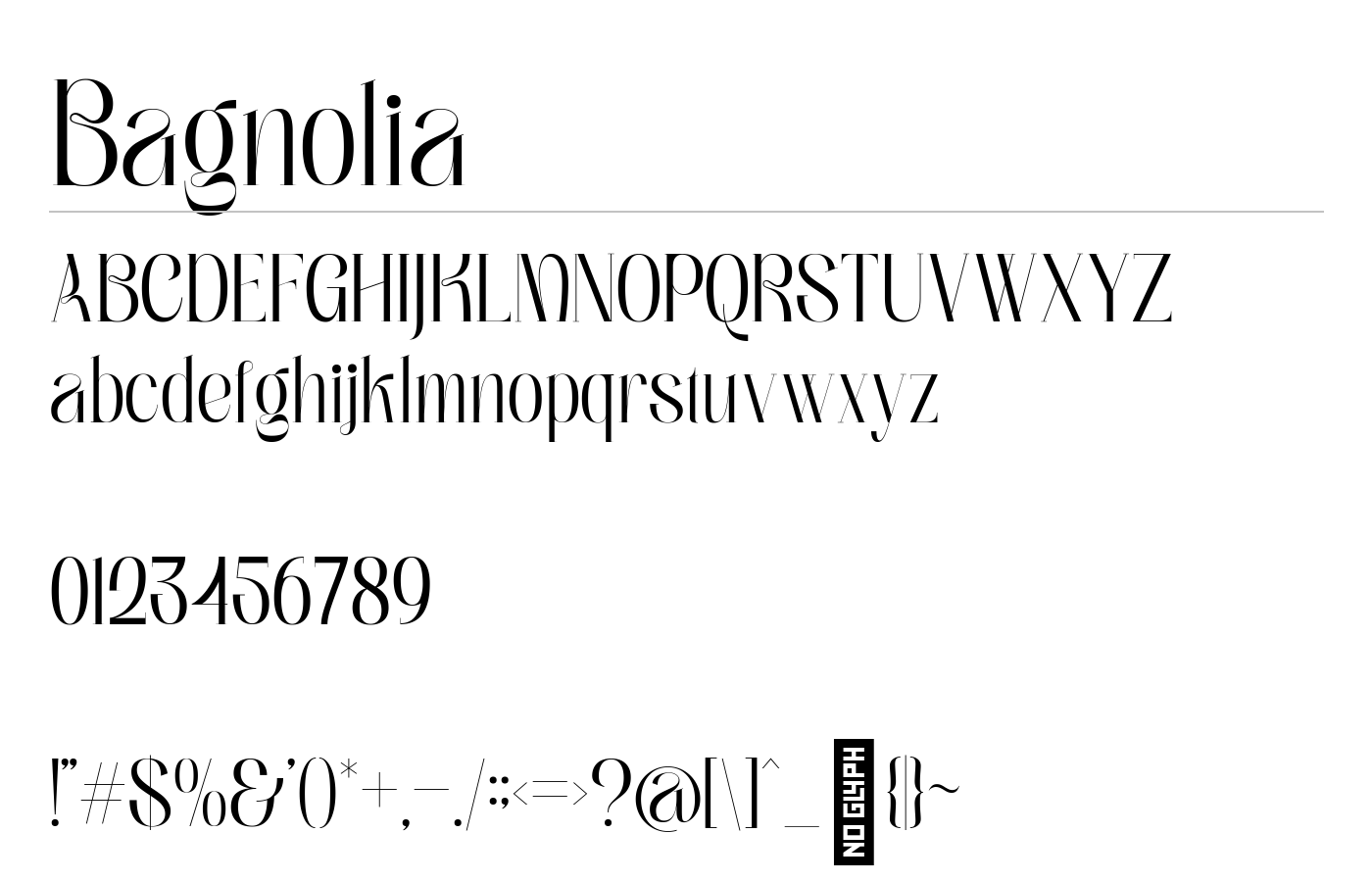
Bagnolia is a refined serif font with a modern, elegant flair, characterized by its high contrast between thick and thin strokes and delicate, slender letterforms. Its tall, narrow proportions combined with unique, artistic details like the curled tail of the 'g' give it a sophisticated and stylish appearance, perfect for upscale branding, editorial headlines, and fashion packaging. This font works beautifully where a luxurious, contemporary look is desired, lending a sense of exclusivity and grace to any design.
Bagnolia Font
About Bagnolia Font